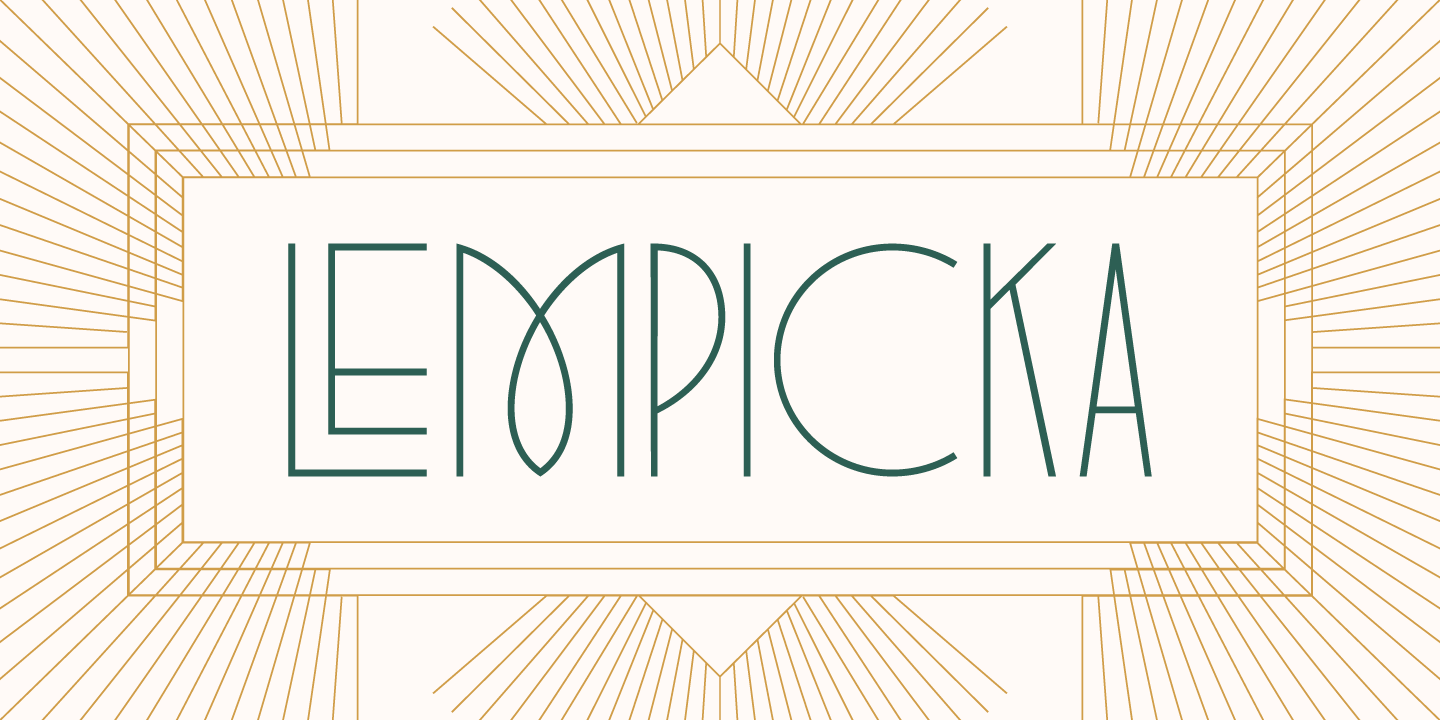
Lempicka Font is ideal for luxury art gallery branding, sophisticated fashion magazines, upscale jewelry catalogs, elegant museum exhibitions, premium cosmetics packaging, high-end interior design projects, exclusive event invitations, refined cultural publications, artistic portfolio presentations, and glamorous lifestyle branding.
What makes Lempicka Font exciting is its Art Deco sophistication and glamorous elegance that captures the luxurious spirit of the roaring twenties and timeless artistic refinement. This exquisite typeface features sleek, geometric letterforms with dramatic contrasts and elegant proportions that evoke the golden age of design and artistic excellence. The font's sophisticated geometry and artistic flair make it perfect for brands seeking to convey luxury, creativity, and cultural sophistication in premium market segments.
The Lempicka Font family includes elegant Art Deco variations: Regular, Bold, Light, Italic, Display, and Ornamental versions. Each style maintains the core sophisticated aesthetic while offering different levels of dramatic impact and decorative appeal. The complete family provides designers with comprehensive tools for creating luxurious, artistically inspired visual communications that celebrate both heritage design and contemporary elegance.
When your project demands artistic luxury and Art Deco glamour, Lempicka Font Free Download delivers exceptional sophistication. This stunning typeface transforms ordinary communications into elegant artistic statements that resonate with cultured audiences appreciating beauty and refinement. Its timeless appeal makes it perfect for both heritage luxury brands and contemporary artistic applications. Download Lempicka Font today and embrace artistic elegance with this remarkable typeface that perfectly captures Art Deco sophistication and timeless creative excellence.